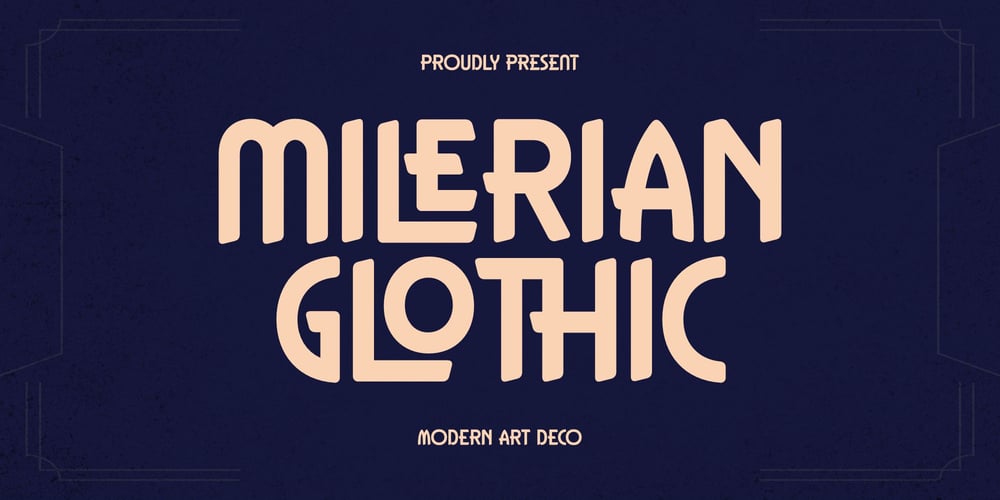
Milerian Glothic Font Family was designed by Heru Utama Putra and published by Letterena Studios. Milerian Glothic contains 2 styles and family package options. Milerian Glothic is a serif modern and classic typeface that has its own unique style & modern look.This typeface is perfect for an elegant & luxury logo, book or movie title design, fashion brand, magazine, clothes, lettering, quotes, and so much more.